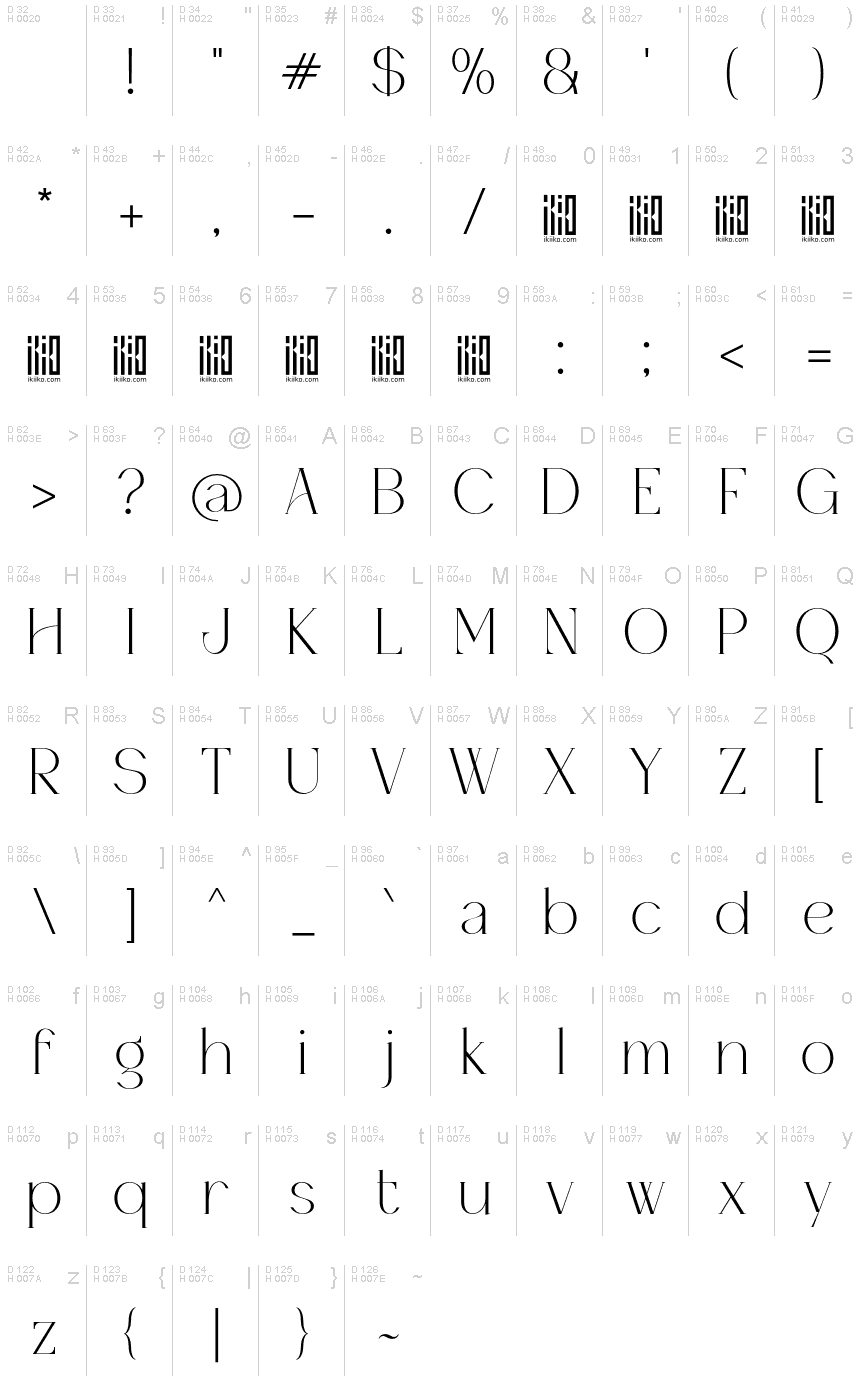
House of Montague, crafted by Ikiiko Type, is a serif font that exudes a blend of classic elegance and contemporary sophistication. With its semi-light weight, this typeface presents a delicate balance between robust serifs and gentle curves, making it remarkably versatile for both print and digital mediums.
The aesthetic appeal of House of Montague lies in its harmonious proportions and the subtle flair of its letterforms. Each character is designed with attention to detail, ensuring readability while adding a touch of personality to the text. This font's stylistic nuances suggest an air of literary charm and artistic grace, perfect for projects that require a nuanced touch without sacrificing clarity.
Whether it’s setting the tone for an evocative novel cover or enhancing the elegance of wedding stationery, House of Montague's tasteful style adapts seamlessly across various creative domains. It's particularly well-suited for editorial content, branding materials, and any design work where distinction is key.
Embrace the unique character and timeless appeal of House of Montague to elevate your creative projects with subtlety and style.